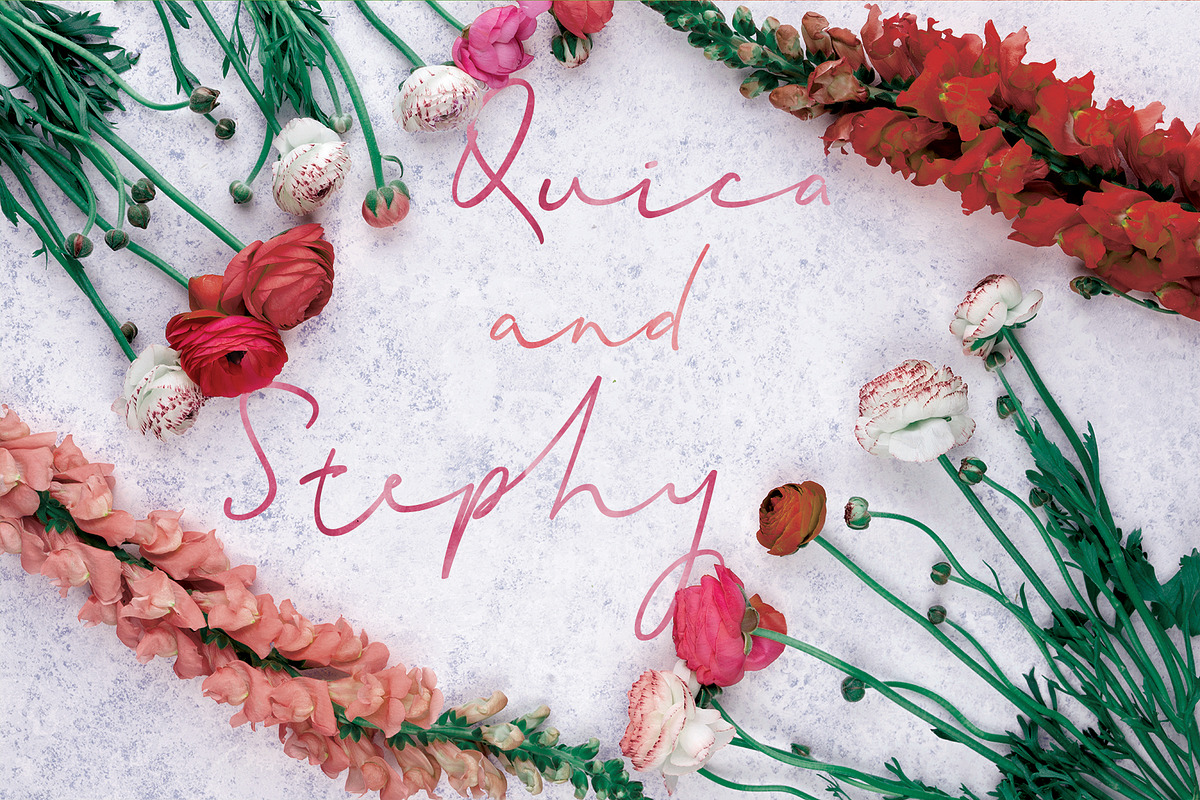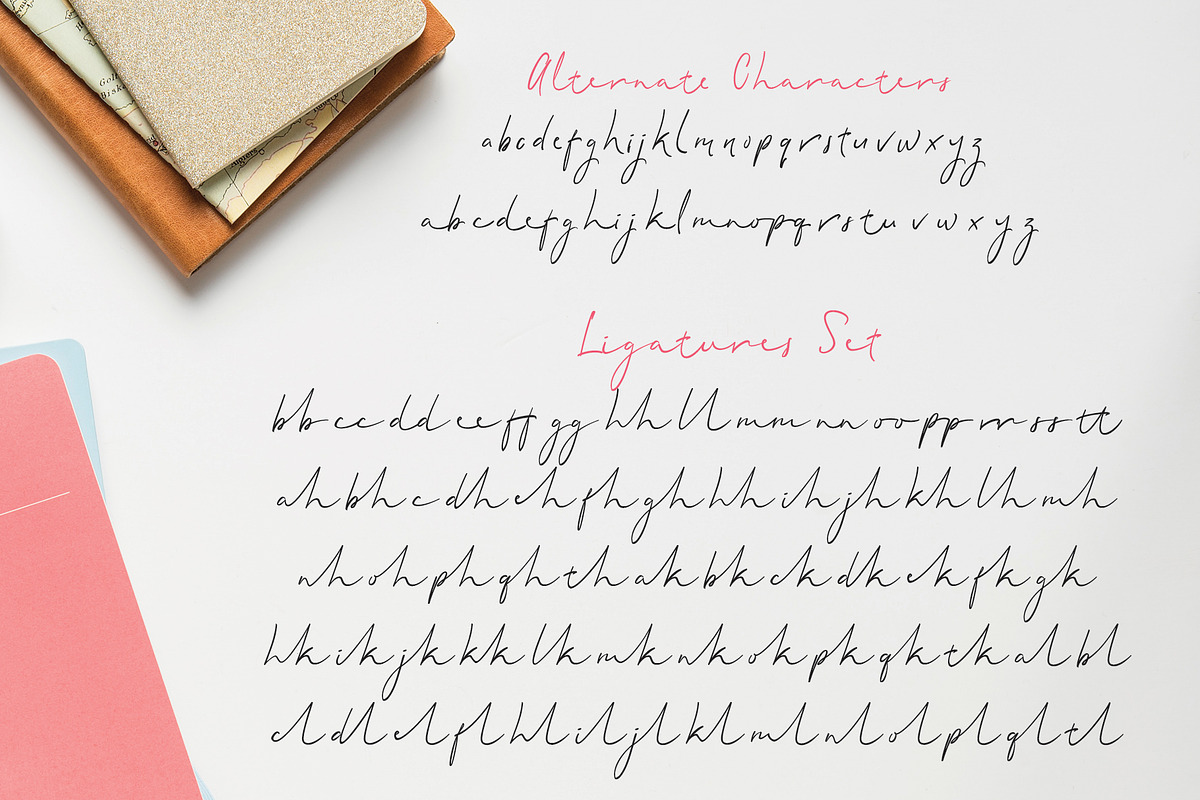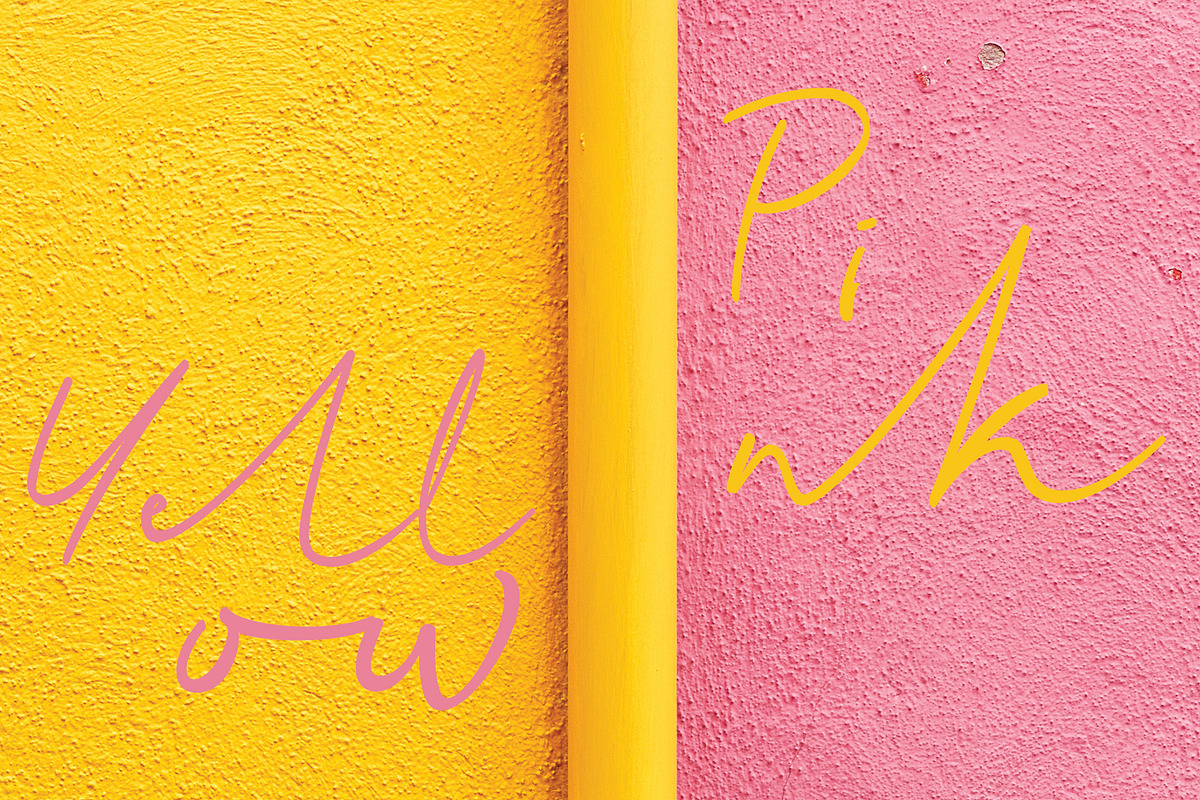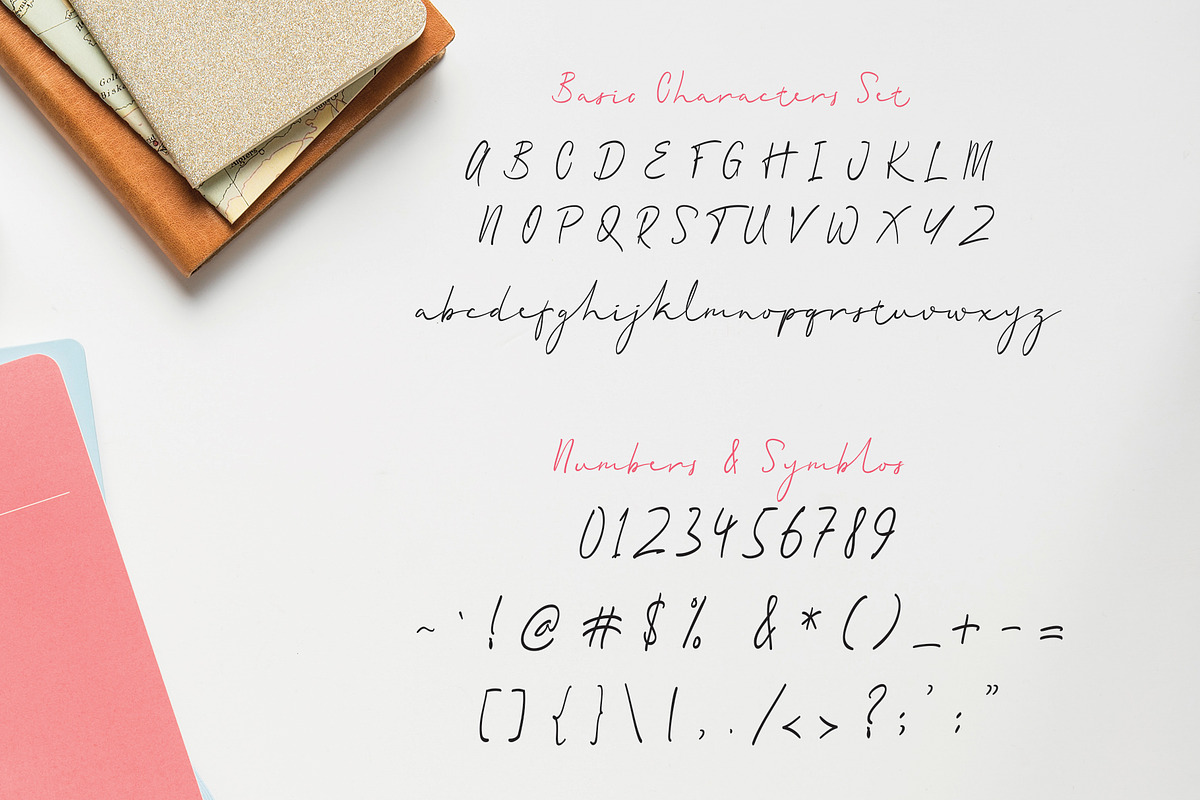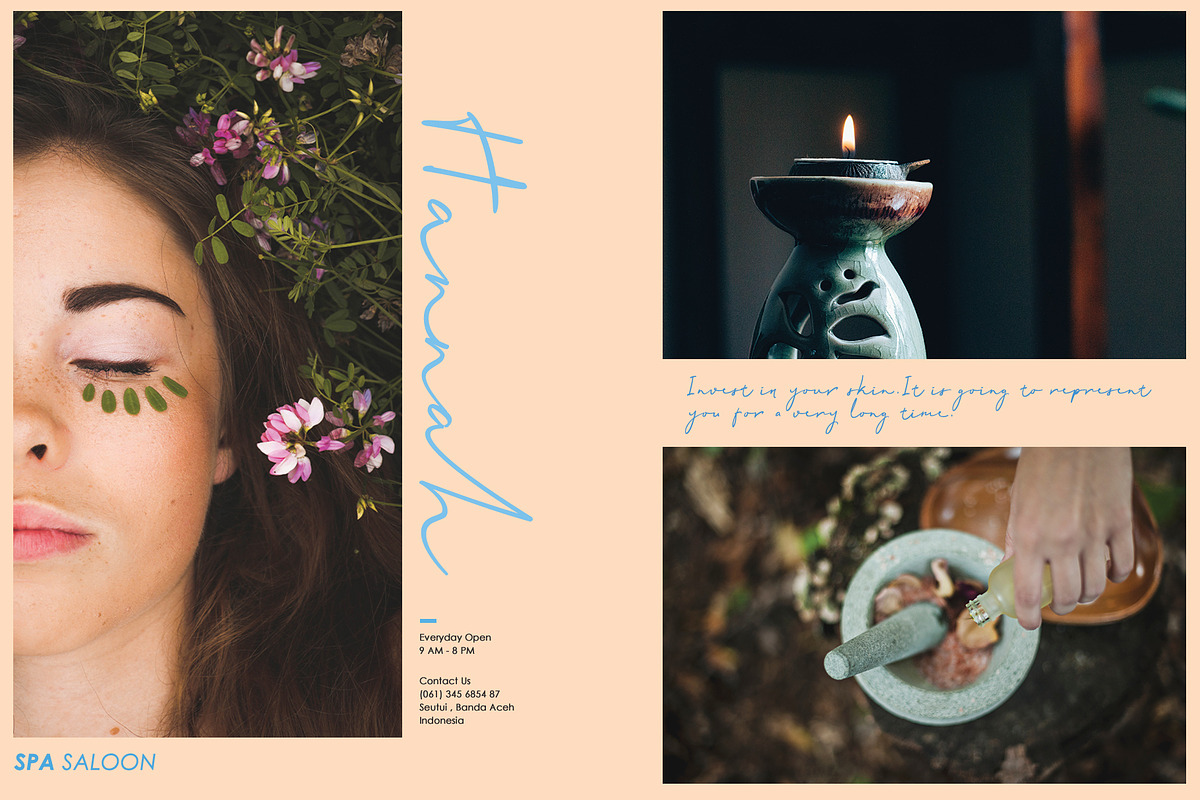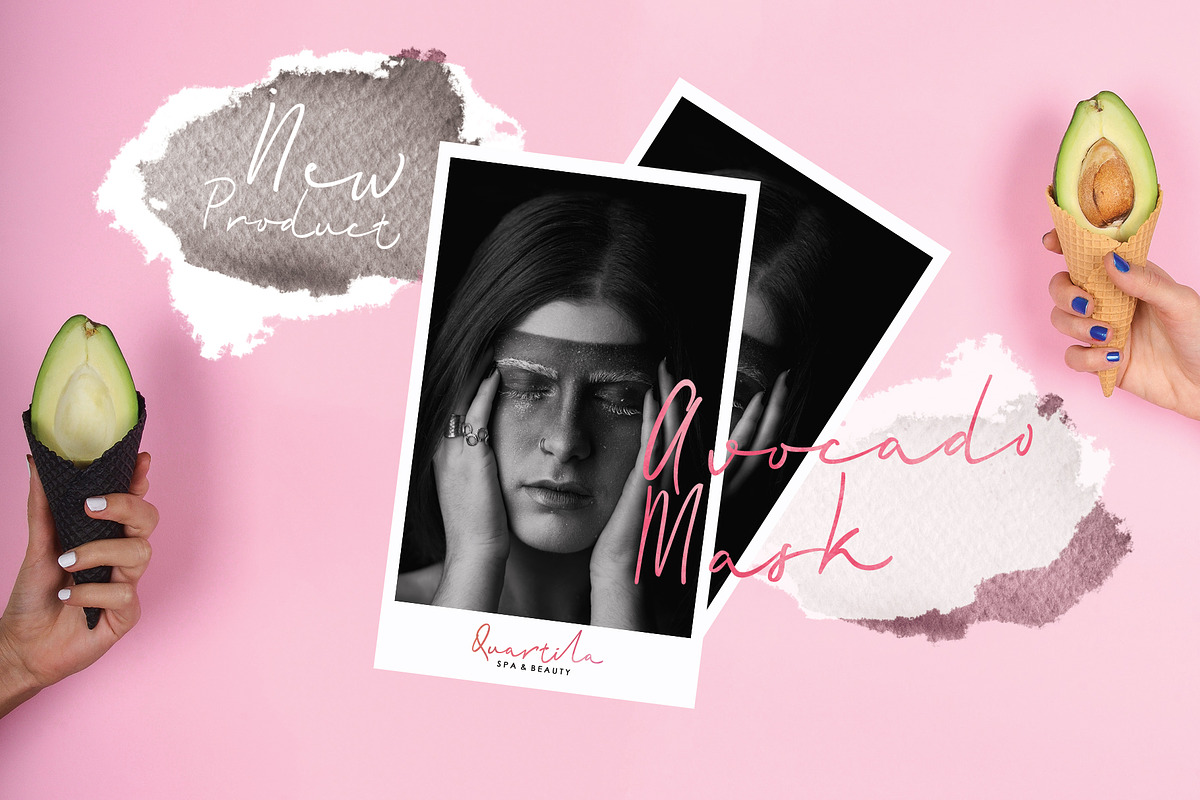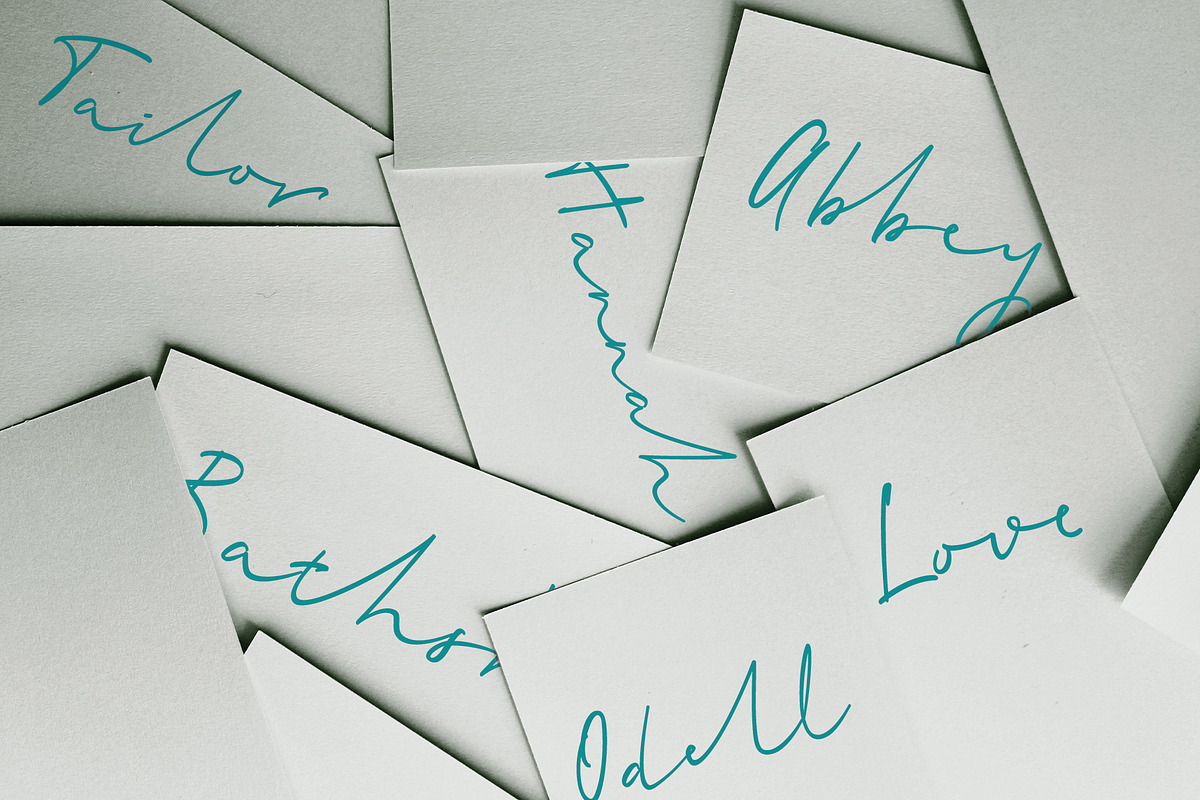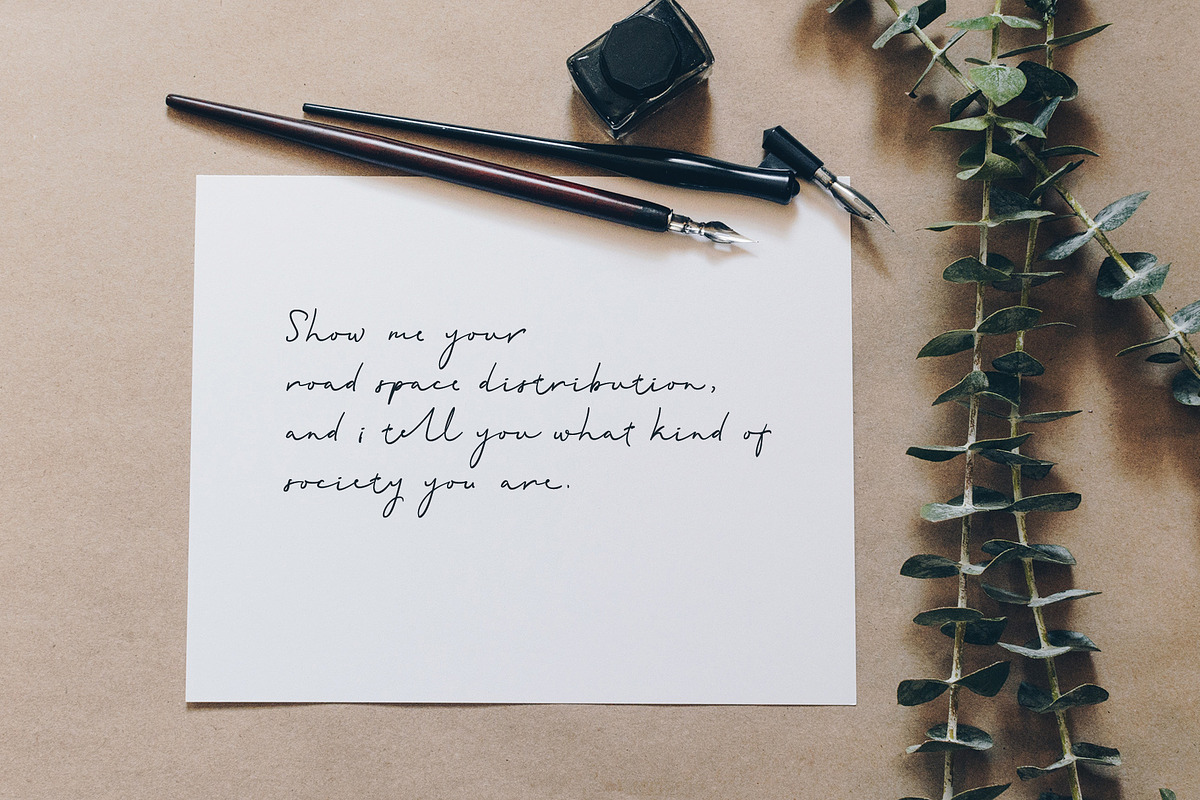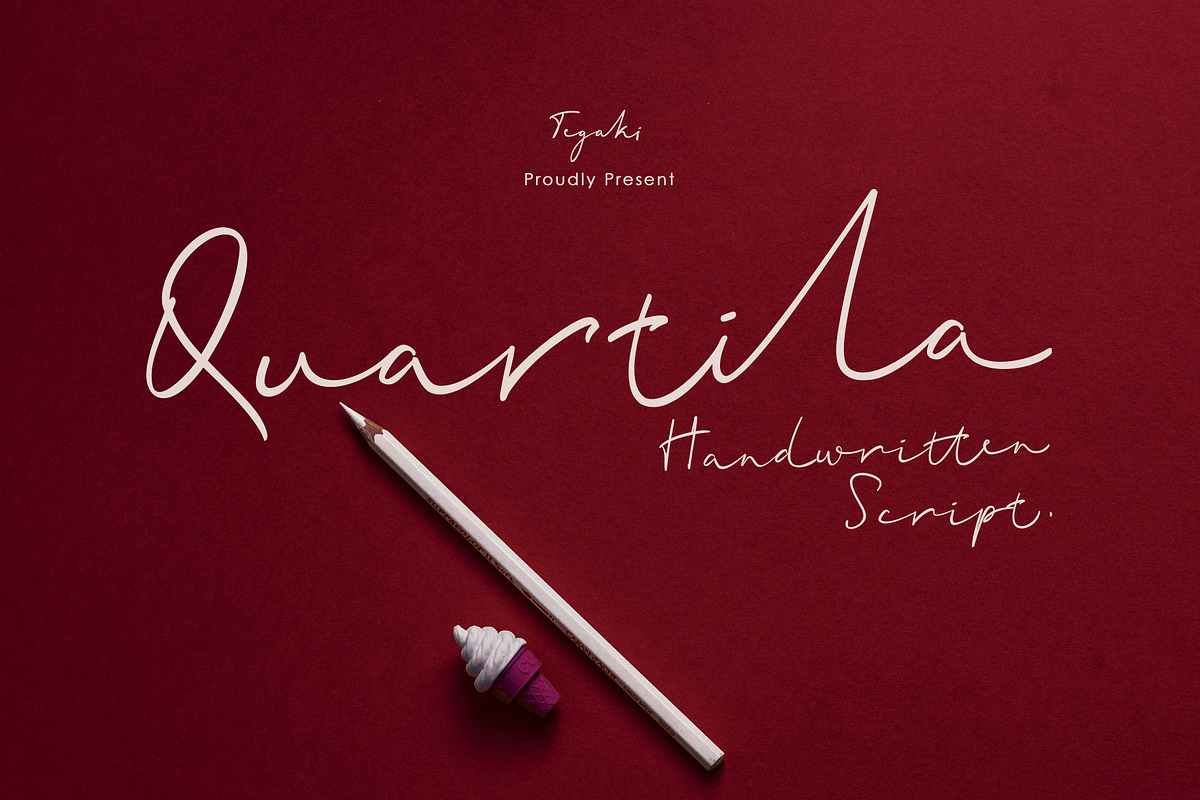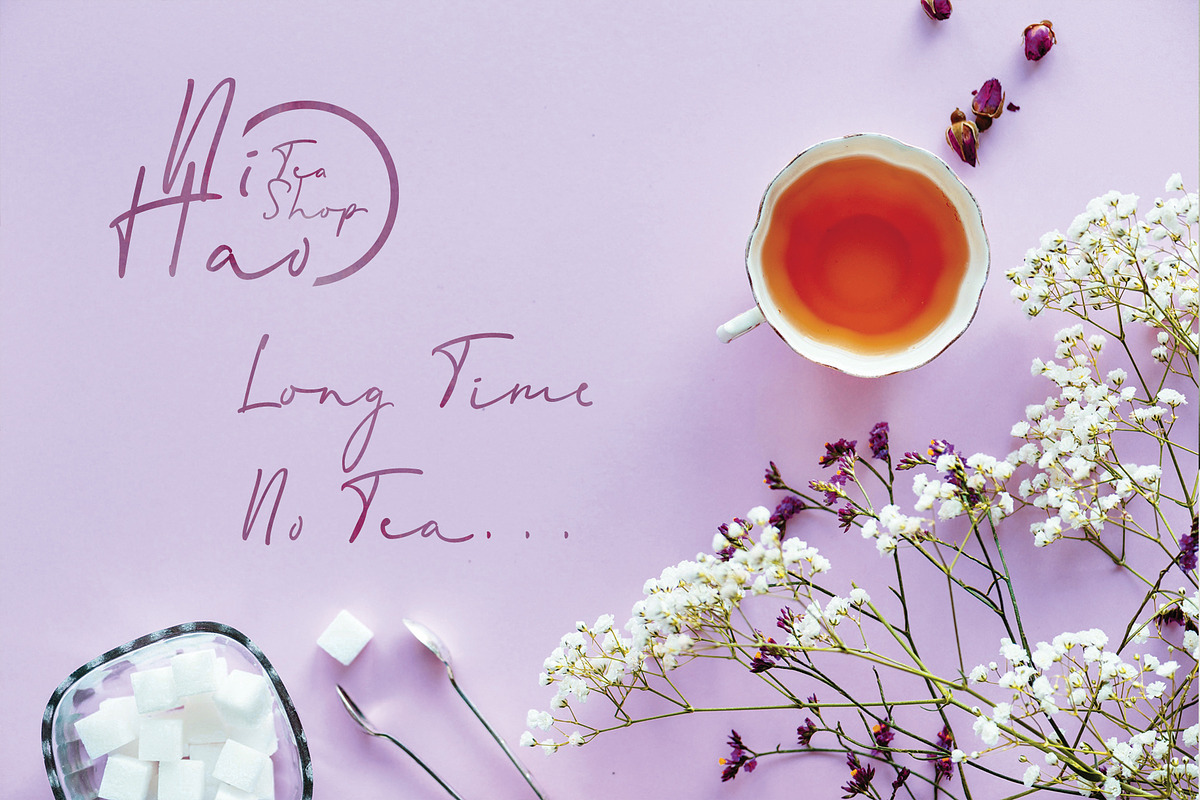
Quartila
Introducing Quartila
I proudly present this "Quartila" script font . Quartila created with stylist and handwritten characters. This great font was PUA encoded . Quartila is a natural handwritten style that comes with Extended Latin Characters. Quartila works perfectly for logos, display, product branding, wedding invitation card, stationary, packaging, clothing, flyer, apparel, magazines, brochures, lable, posters, badges, etc.
Quartila comes with 339 glyphs and 52 alternate characters contain with opentype features. Quartila also comes with 67 ligatures that allowing you to make stuff looks more exclusive and pro standard.